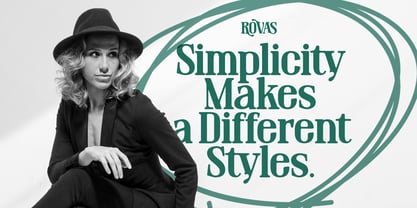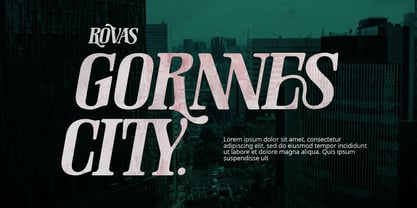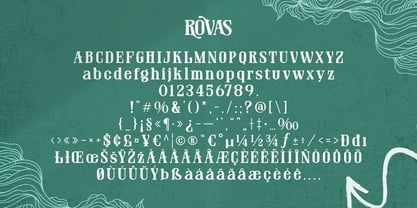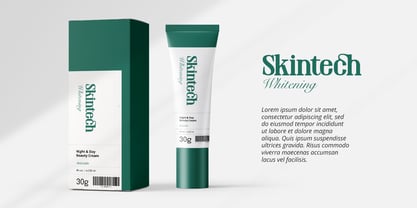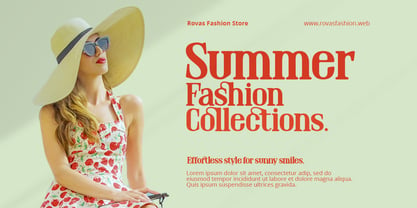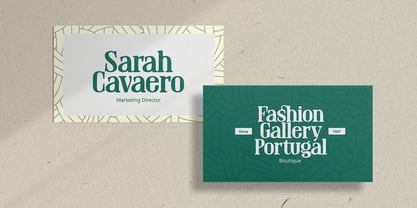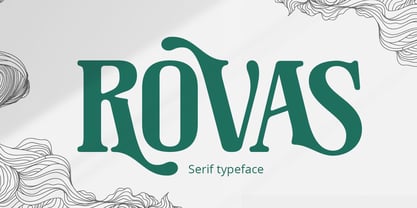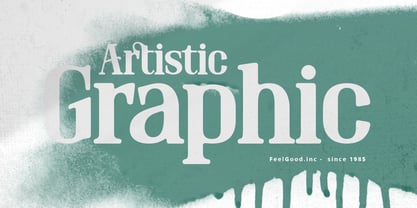
Rovas
by Grontype
The Rovas Font Family was designed by Jarnawi Saja and published by Grontype. Rovas contains 2 styles and family package options. More about this family
Rovas is a bold rounded serif font that blends modern elegance with strong readability. Its soft curves and confident weight create a distinctive, refined look while maintaining a friendly and approachable feel. Designed for versatility, Rovas performs beautifully across both print and digital media—from editorial layouts to branding and logotypes. Equipped with stylistic alternates and ligatures, it offers creative flexibility, allowing you to craft unique and expressive typography with ease. Rovas is the perfect choice when you want a typeface that feels both sophisticated and contemporary.
Designers: Jarnawi Saja
Foundry: Grontype